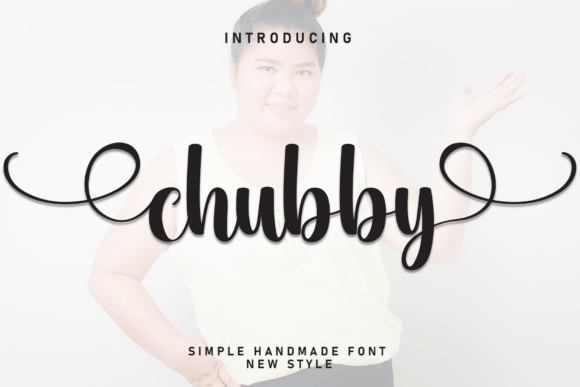
The Elusive Perfect Font: My Encounter with Chubby
I’ll never forget the frustration of scrolling through font libraries, searching for that one perfect script font for a client’s wedding invitation project. The brief was simple: elegant, personal, and sophisticated. But, as designers know all too well, finding a font that ticks all those boxes can be like searching for a needle in a haystack. That’s when I stumbled upon Chubby, a stylish handwritten script font that has since become a staple in my design arsenal.
An Honest Review of Chubby Font
What I Love About Chubby ✨
• 💫 Fluid, graceful strokes that exude elegance and charm
• ✅ Perfect for branding, invitations, and stationery
• 🎨 Smooth curves and natural flow create a timeless, refined look
• 🤩 Highly versatile and adaptable to various design contexts
• ⚠️ Limited availability of stylistic alternates, which might restrict design variations
• 🤔 May not be the best fit for body text or lengthy content due to its elegant, cursive nature
A Practical Guide to Using Chubby Font
If you’re looking for fonts similar to Chubby, consider these elegant script fonts:
• Lobster: A classic, elegant script font with a more formal tone, ideal for high-end branding and luxury designs
• Pacifico: A modern, elegant script font with a relaxed, beachy vibe, perfect for lifestyle and travel brands
• Great Vibes: A stylish, handwritten script font with a fun, energetic personality, great for creative and youthful designs
• Carolyna Pro: A sophisticated, elegant script font with a vintage flair, suitable for wedding and event designs
The Story Behind Chubby Font
Chubby font was designed by a talented typographer who aimed to create a script font that embodies elegance, charm, and a personal touch. Inspired by traditional calligraphy and handwritten scripts, Chubby’s creator sought to craft a font that would add a touch of sophistication to any design. The result is a beautiful, fluid script font that has captured the hearts of designers worldwide.
What is Chubby font best used for? Chubby font is ideal for branding, invitations, stationery, and any design project that requires an elegant, personal touch.
Is Chubby font suitable for body text? No, Chubby font is best used for titles, headings, or short paragraphs due to its elegant, cursive nature.
Does Chubby font support OpenType features? Yes, Chubby font supports OpenType features, including ligatures and stylistic alternates.